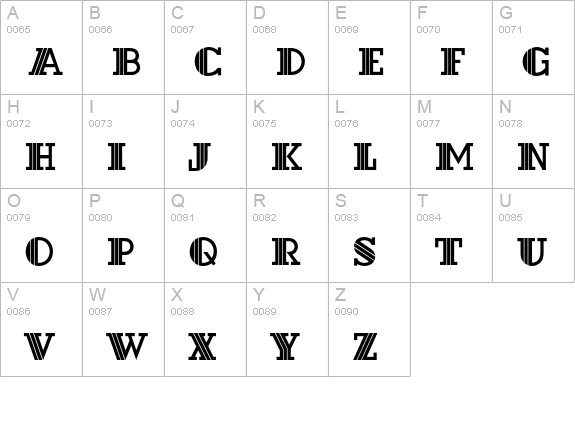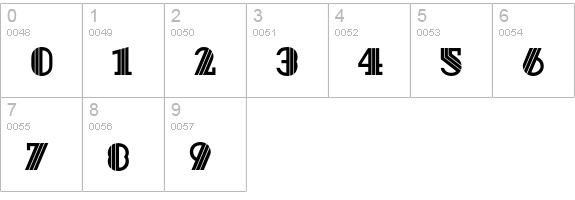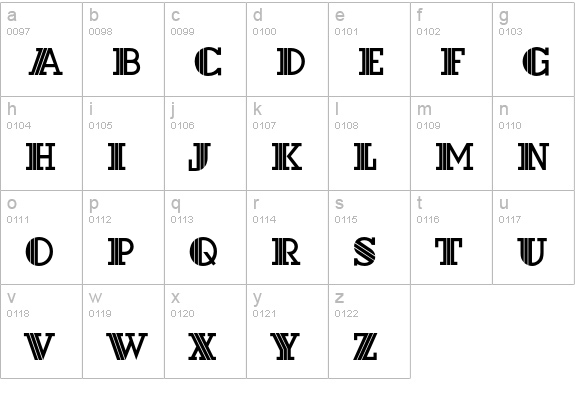
DextorEF Font Details
DextorEF font is a versatile and modern typeface that combines sleek lines with a touch of elegance. This sophisticated font is perfect for a wide range of design projects, from branding to editorial design. Its clean and legible design makes it a great choice for both print and digital applications. What's even better is that DextorEF font is completely free to use! You can easily download this stylish font at FontsMarket.com without any cost. With its timeless appeal and professional look, DextorEF font is sure to elevate your designs and make them stand out. Don't miss out on this fantastic opportunity to enhance your creative projects with DextorEF font - download it today and see the difference it can make!